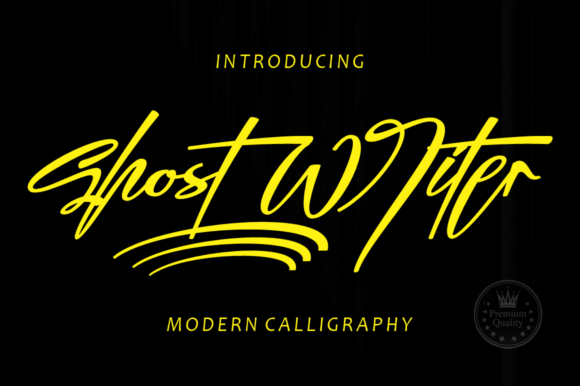
Introducing Ghost Writer Font, the ultimate font for creating captivating signatures, logos, and design projects that leave a lasting impression. This exquisite script font transports you to a realm of elegance and sophistication, adding a touch of timeless charm to every letter you write.
Crafted by the talented Gianstudio12, Ghost Writer is more than just a font; it's an expression of your unique style. Its dynamic and handcrafted nature mimics the flow of a skilled calligrapher's pen, infusing your words with an unparalleled level of authenticity.
With Ghost Writer, you'll effortlessly transform ordinary words into extraordinary works of art. Its PUA encoding grants you effortless access to a treasure trove of glyphs and swashes, empowering you to create stunning variations that add depth and visual interest to your designs.
Whether you're crafting a signature that exudes professionalism, designing a logo that embodies the essence of your brand, or simply seeking a font that elevates your creative projects, Ghost Writer is the perfect choice. Its versatility knows no bounds, making it an indispensable tool for designers, artists, and anyone who seeks to leave an unforgettable mark on the world.
So, embrace the allure of Ghost Writer Font, unleash your creativity, and let your designs shine with a touch of timeless elegance and captivating charm.